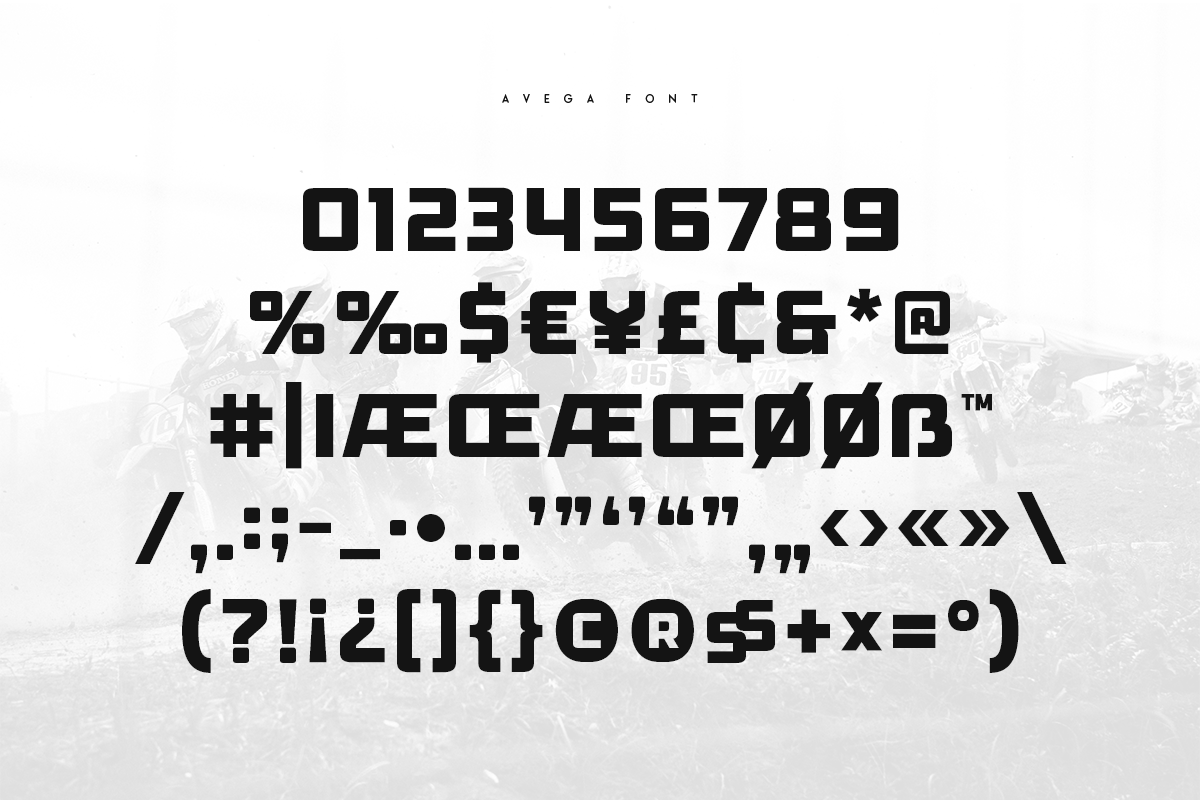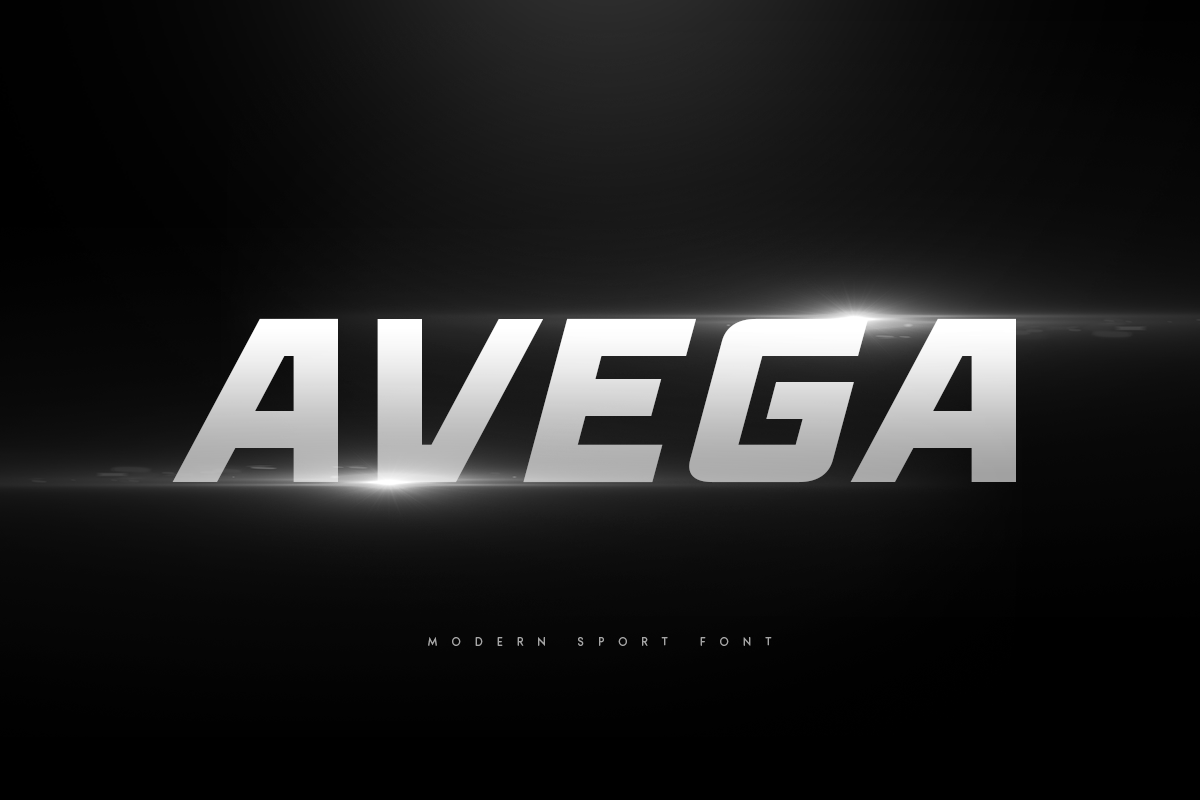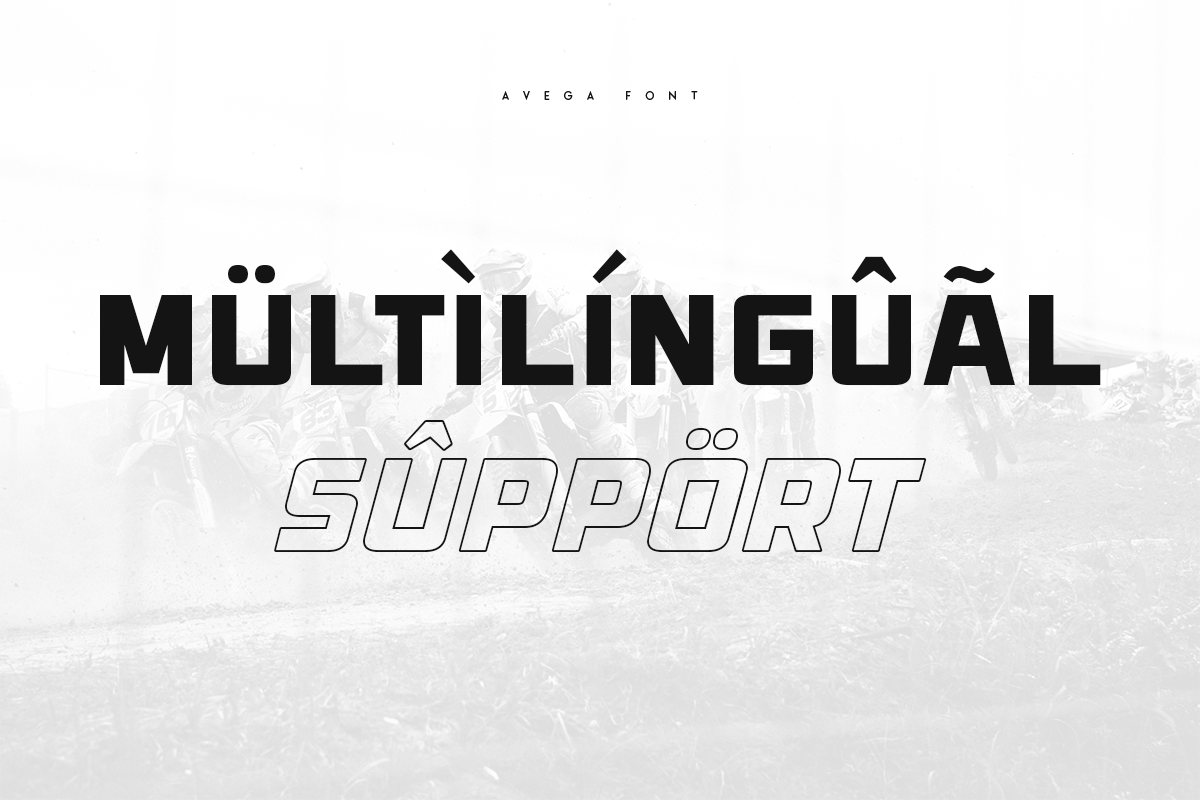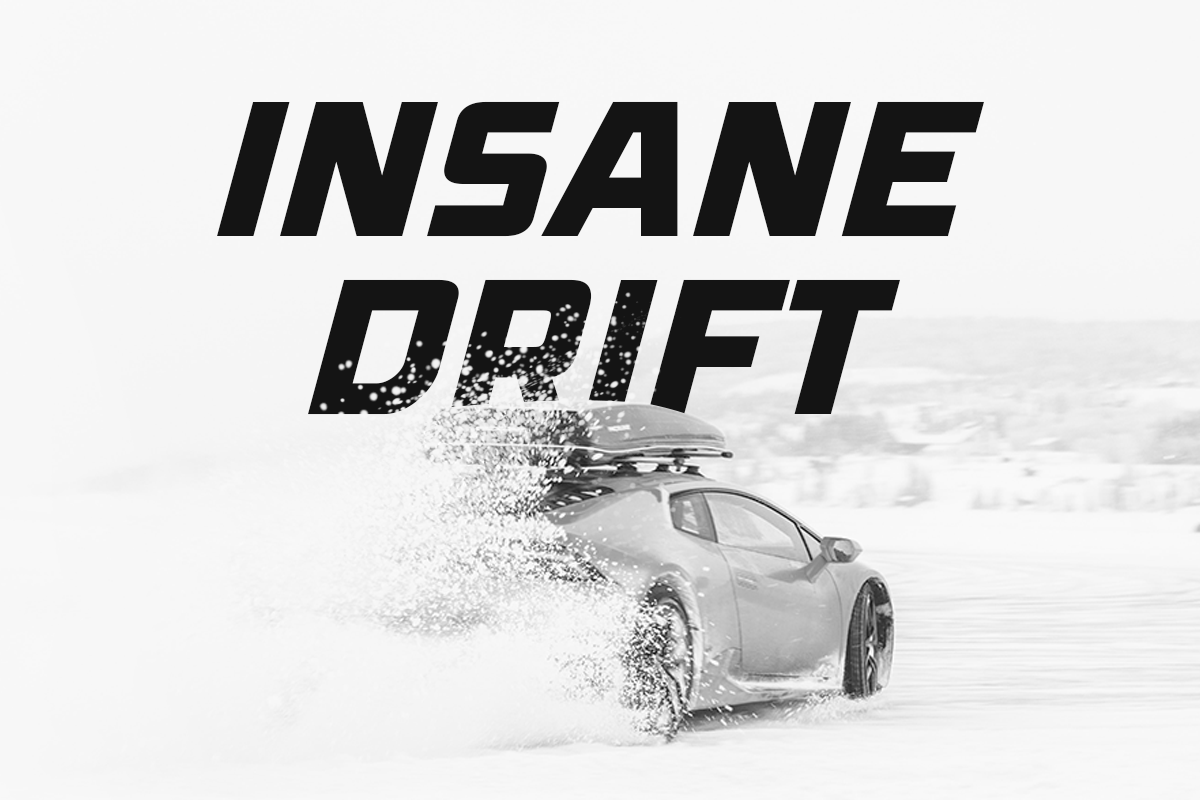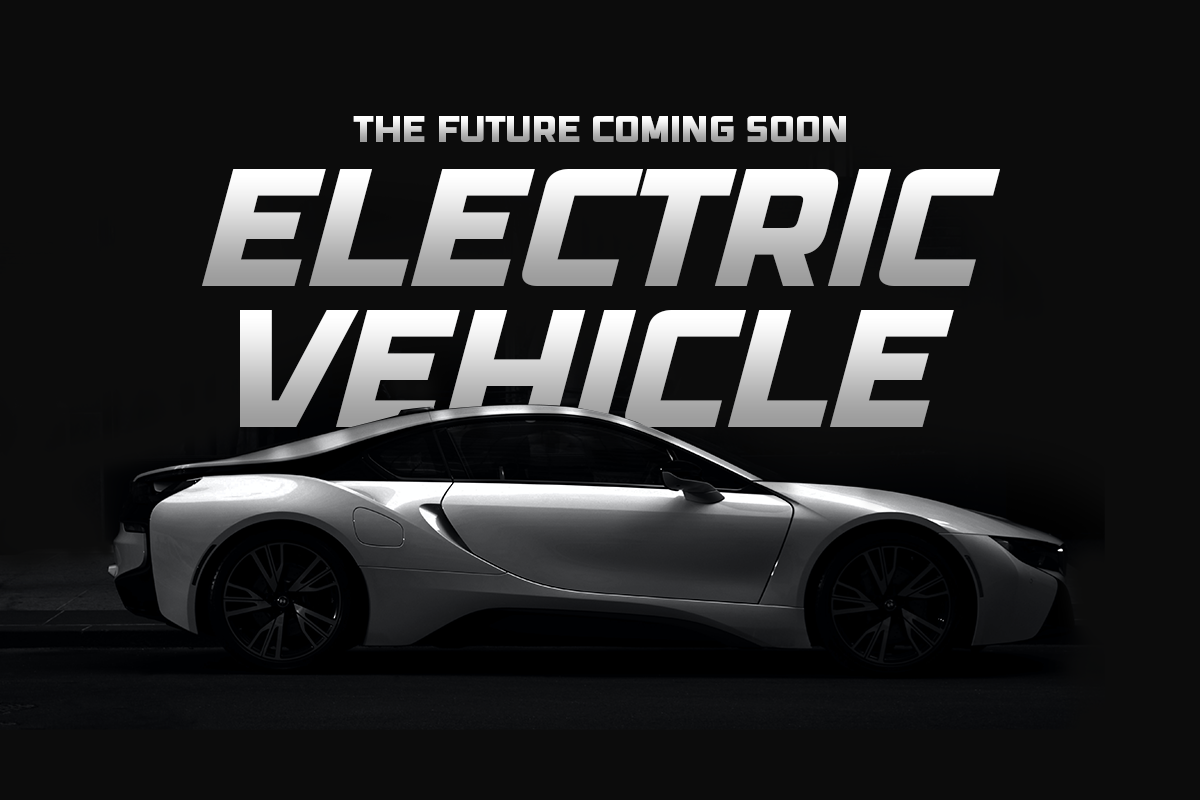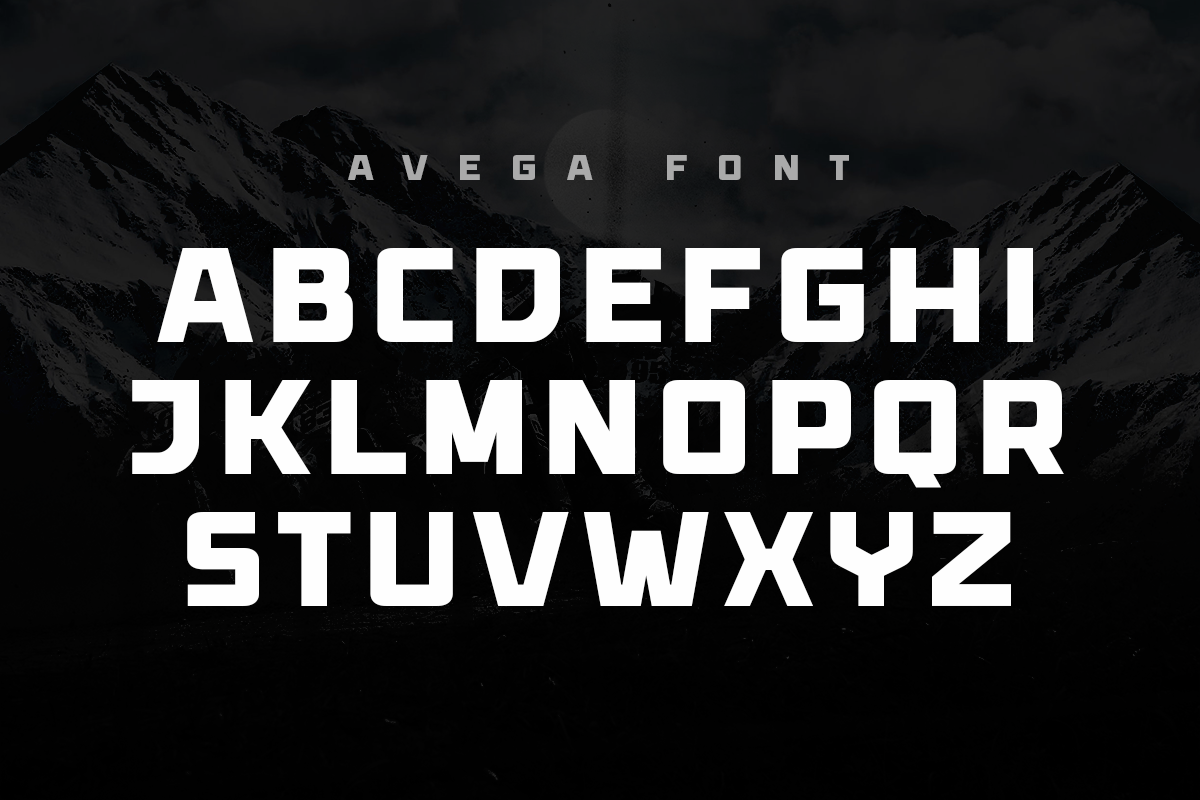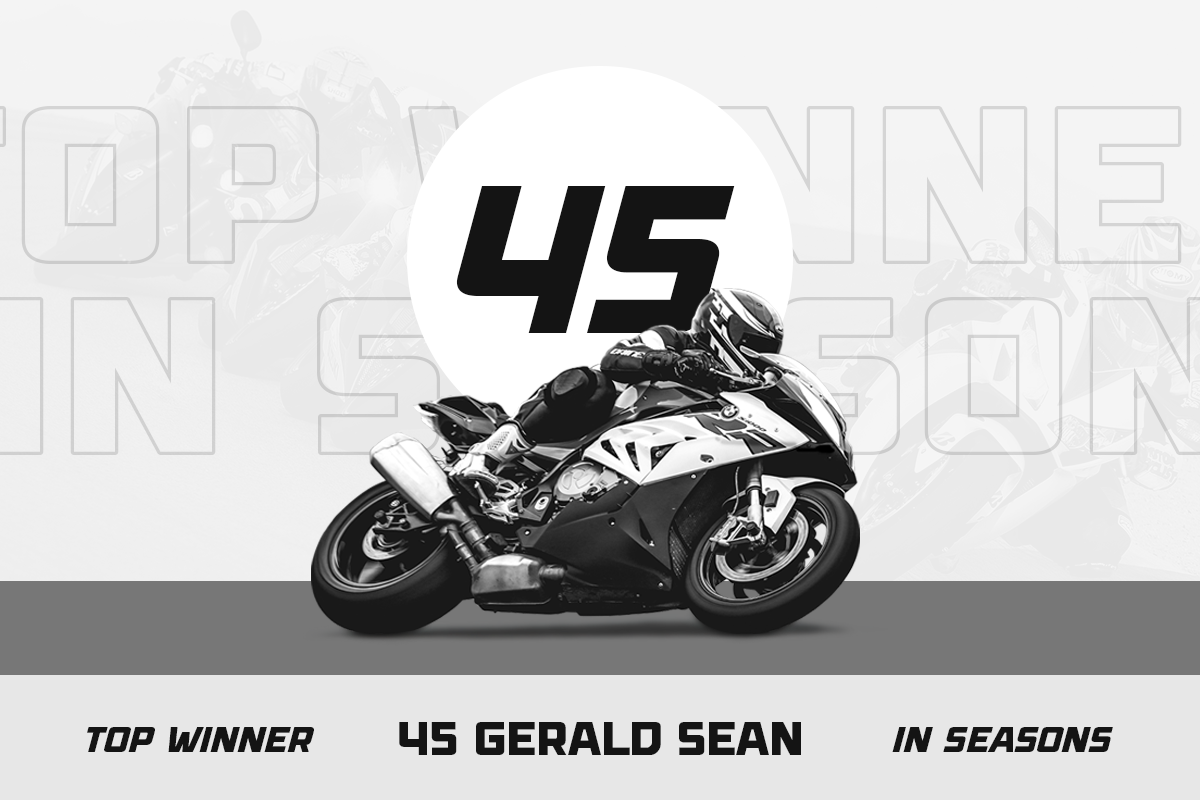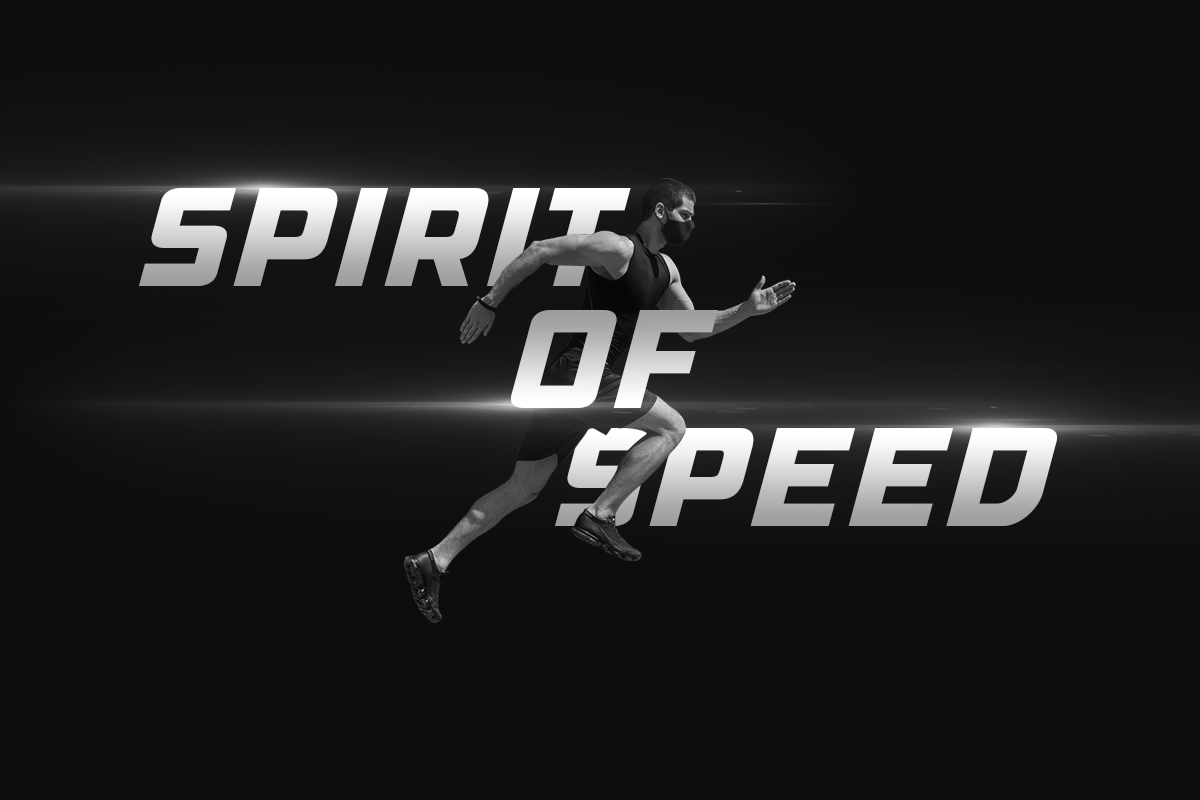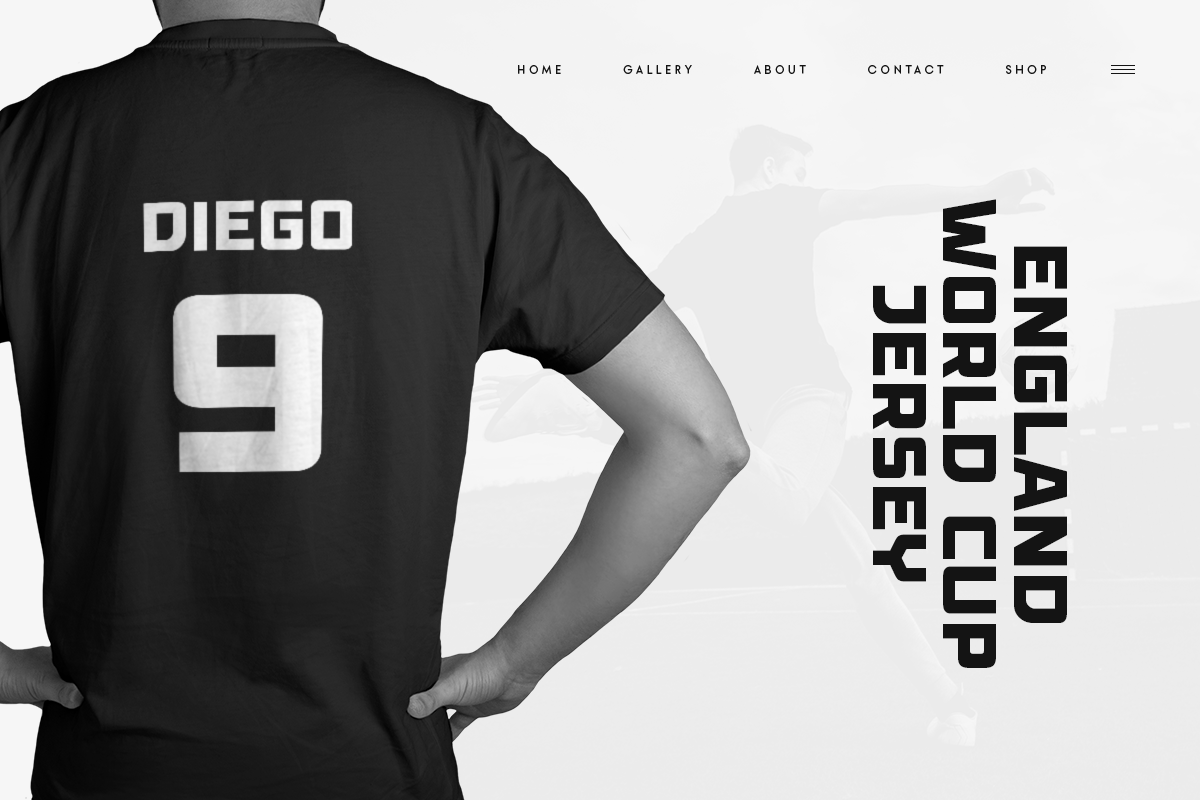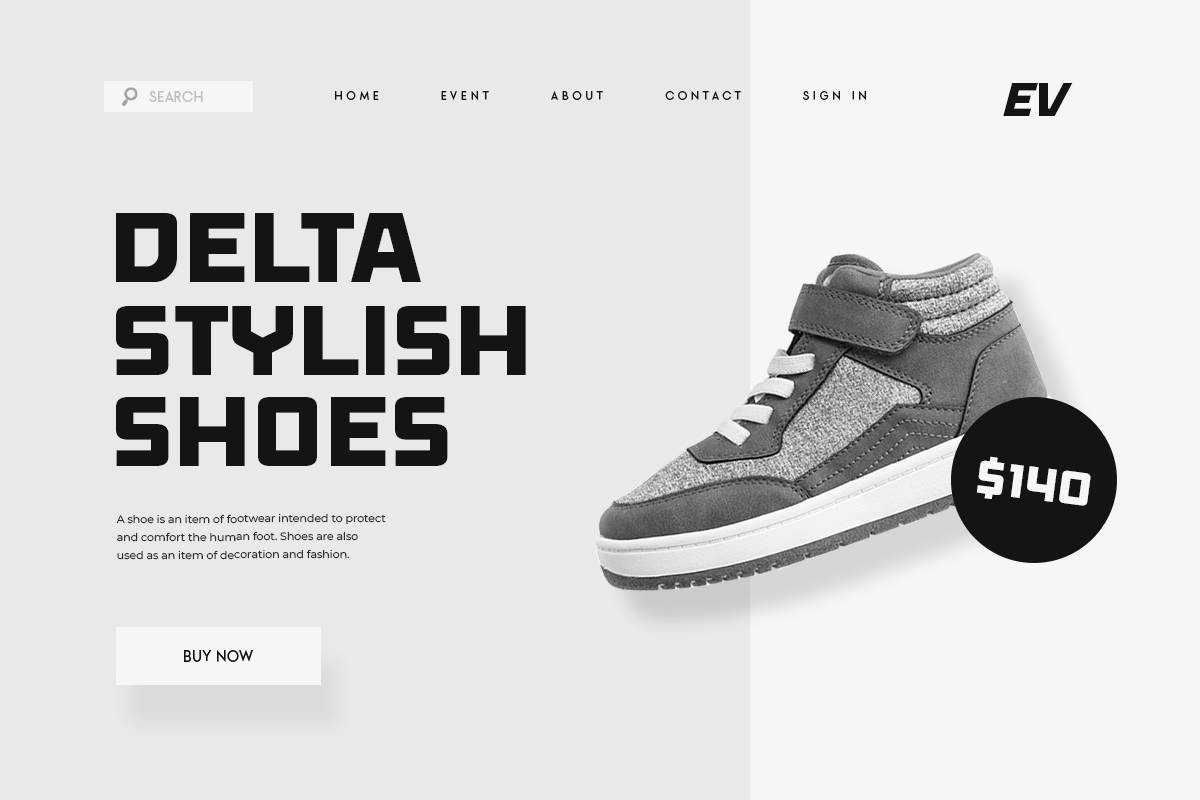
AVEGA - Modern Sport Font
AVEGA is a Modern Sport font that created special for Branding, Title and more stand out typography needs, with extra alternative styles that make your design more memorable. It's so perfect to add your style and headline overview for sport, technology, actions, and fighting theme. And specially for this font, we crafted for bold action style and modern feels so enjoy to create any project that will show your main idea out.
AVEGA Modern Sport font ready with:
- 4 Font variation characters prepared to get creative alternatives
- Ready with All Uppercase characters